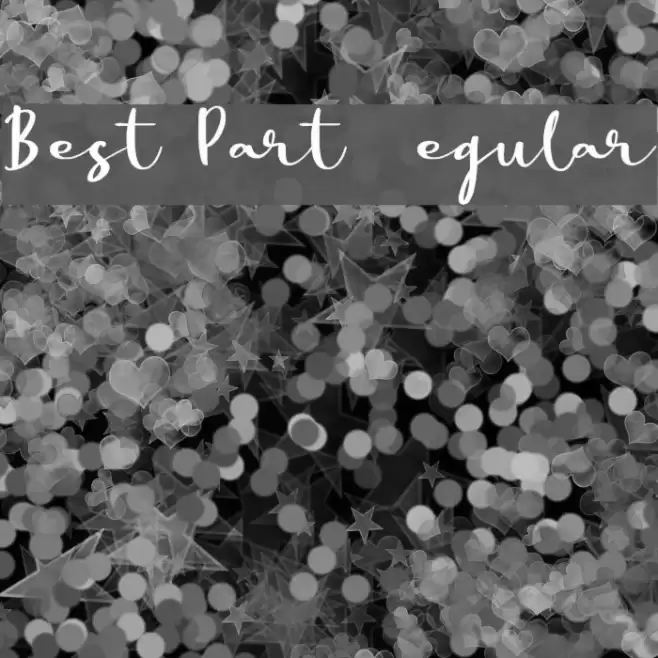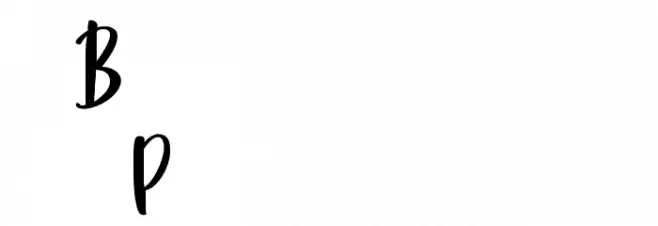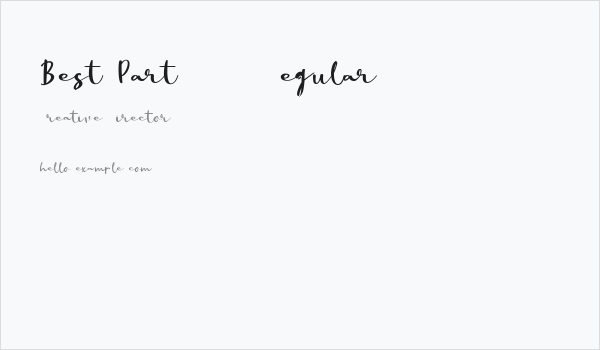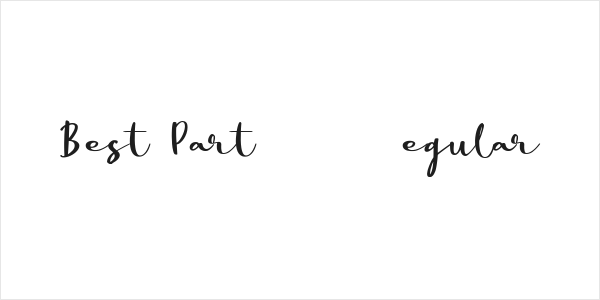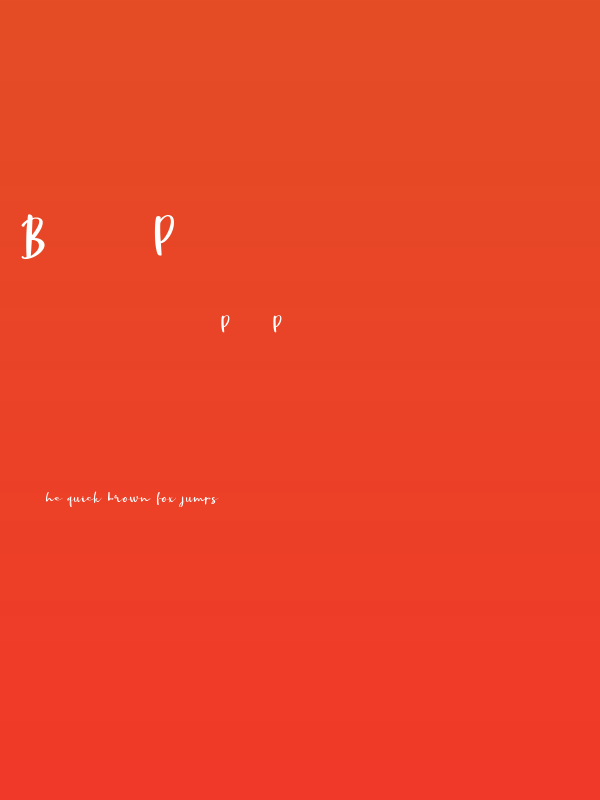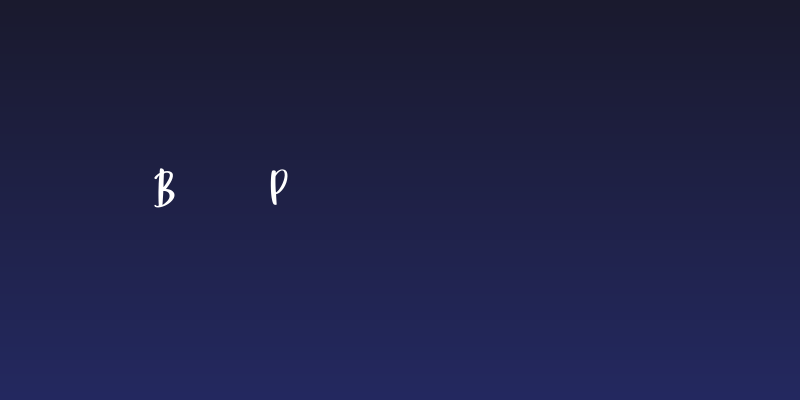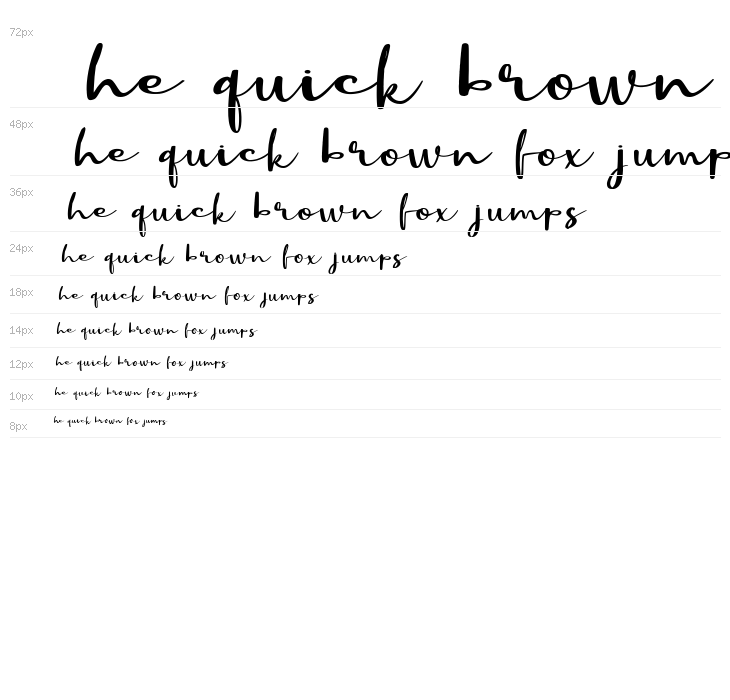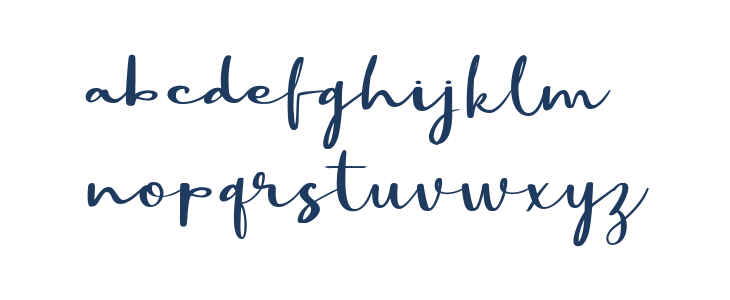
Best Part DEMO Regular Font
Best Part DEMO Regular Description
This font features a charming and elegant script style, characterized by its flowing and connected letterforms. The uppercase letters are bold and slightly more structured, providing a nice contrast to the more fluid and cursive lowercase letters. The strokes are smooth and consistent, with a slight slant that adds to the handwritten feel. The overall appearance is both sophisticated and approachable, making it suitable for a variety of design projects. The font maintains a balanced weight throughout, ensuring readability while preserving its decorative nature.
A charming and elegant script font with flowing, connected letterforms from Uncategorized fonts.